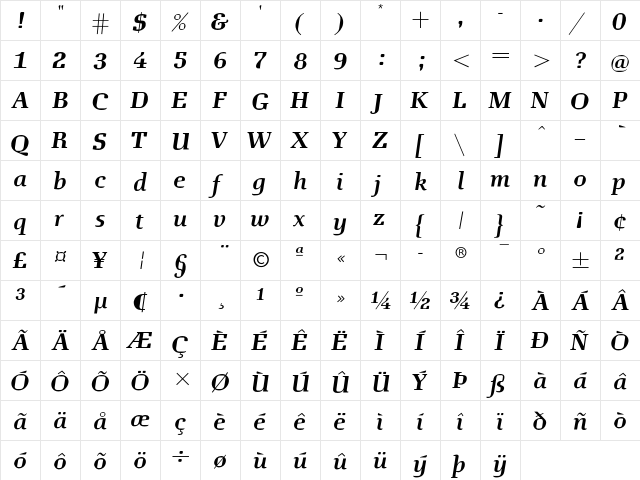
Euclides Regular Font Preview
Euclides Regular
Euclides Regular Font Details
Design Context for Euclides Typeface
Euclides takes a measured approach to typography — its balanced proportions and neutral character make it a reliable workhorse for both digital and print work.